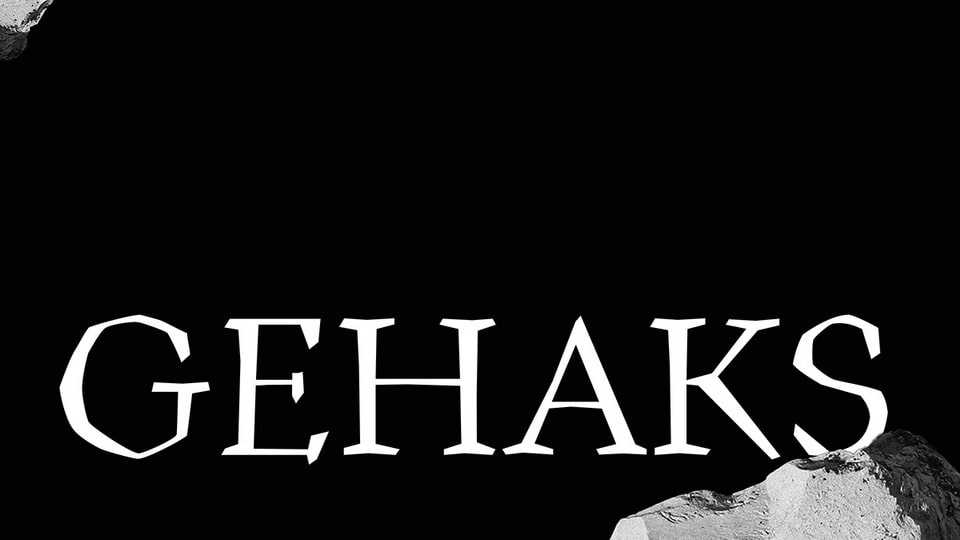
Download Gehaks font, a striking display typeface that captures the timeless elegance of Antiqua letterforms infused with the rugged beauty of glyptal craftsmanship.
Designer: Emily Michajlenko